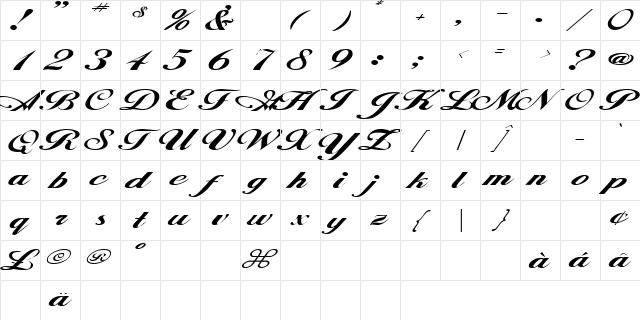
ZimmermanExtended Regular
Design Context for ZimmermanExtended Typeface
ZimmermanExtended is a composed and adaptable typeface that performs quietly and consistently across a wide range of design contexts.